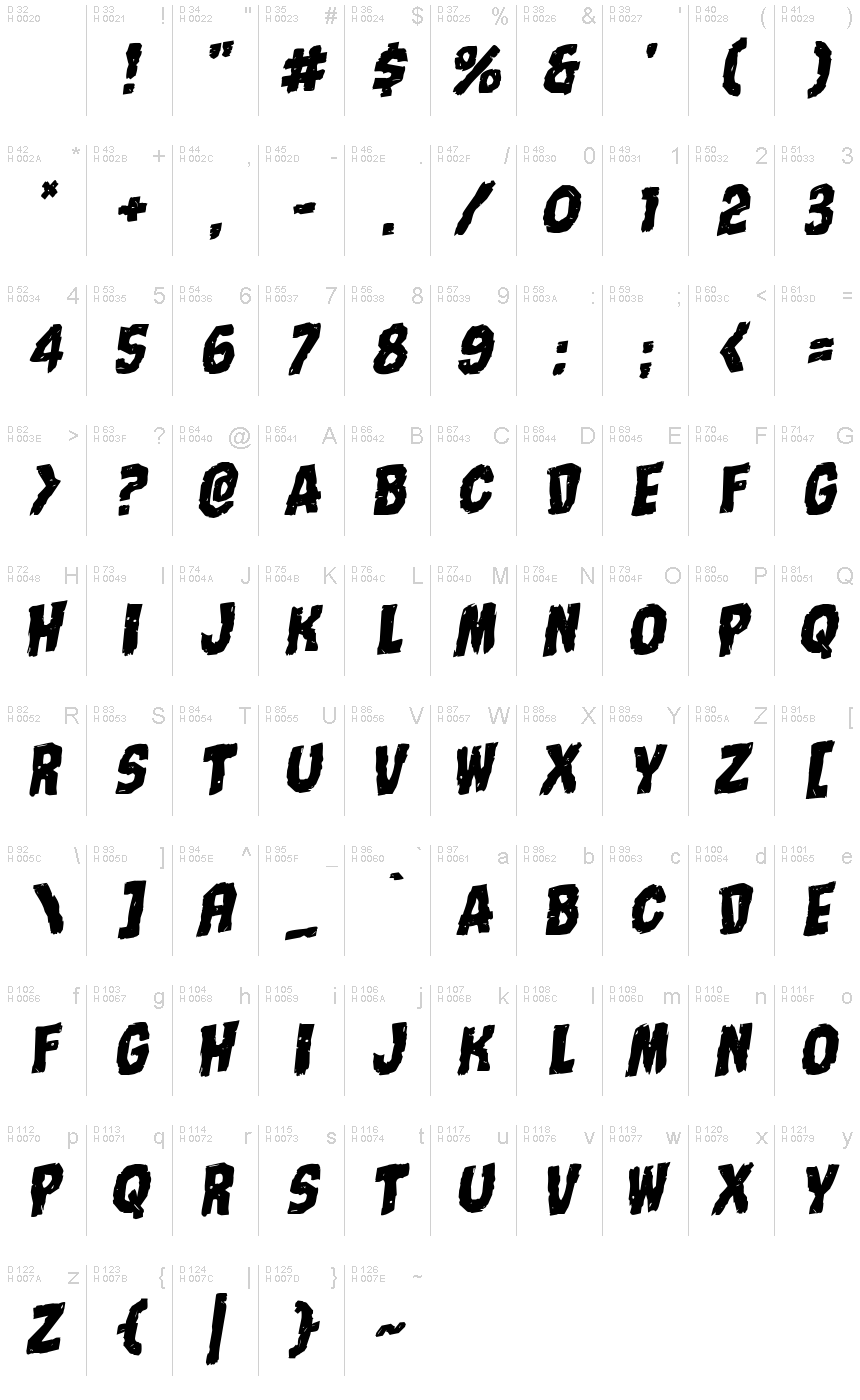
Nightmare Alley Rotalic
Nightmare Alley is a bold, condensed display font that exudes an undeniably dark and unsettling atmosphere. Designed by Daniel Zadorozny, this font's distinct features include jagged, angular letterforms and a haunting, rotalic style. The overall aesthetic evokes a sense of unease and foreboding, making it an ideal choice for horror-themed designs, horror film posters, and other projects that require a truly chilling visual impact.
Nightmare Alley's versatility extends beyond the realm of the macabre, allowing it to be effectively utilized in branding, packaging, and editorial designs seeking to convey a sense of mystery, suspense, or dread.